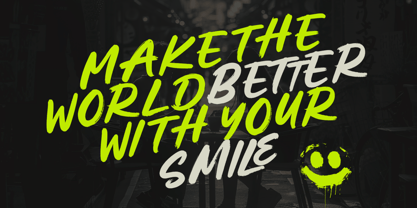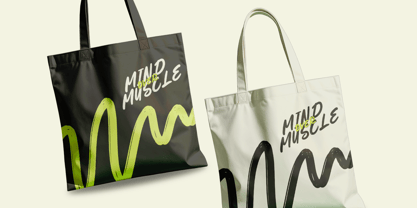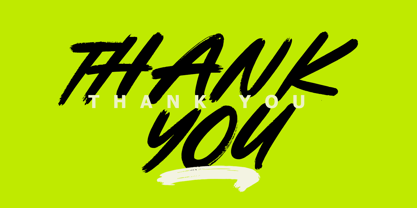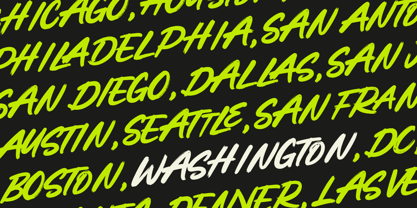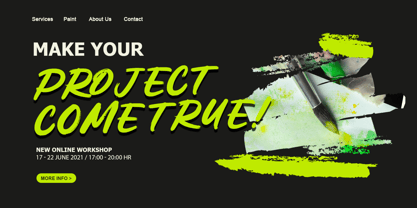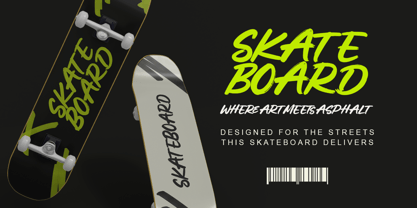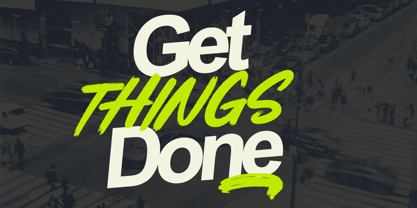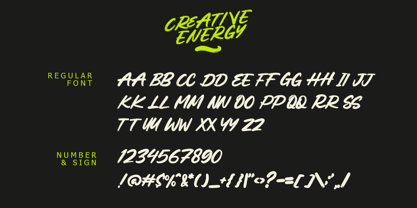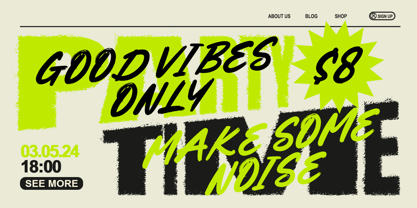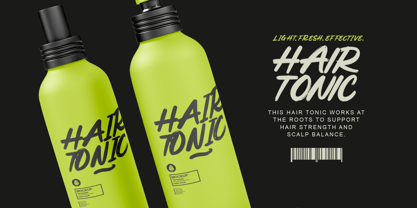
Creative Energy
par Letterara
La famille de polices Creative Energy a été conçue par Thomas Aradea et publiée par Letterara. Creative Energy contient 2 styles et options de package familial. En savoir plus sur cette famille
Introducing Creative Energy, a modern brush font fueled by motion, expression, and unstoppable momentum. Every stroke pulses with bold creativity, capturing the raw power of hand-drawn movement and contemporary design attitude. Built with dynamic lines and expressive textures, Creative Energy transforms letters into a visual force, alive, confident, and impossible to ignore.   This font thrives in high-impact designs such as branding, posters, social media visuals, YouTube thumbnails, and bold digital projects that demand presence. Creative Energy doesn’t sit still; it flows, strikes, and electrifies every composition it touches. Fully loaded with alternates and PUA encoding, it gives you total freedom to shape typography that feels fresh, fearless, and endlessly creative.
Concepteurs: Thomas Aradea
Fonderie: Letterara